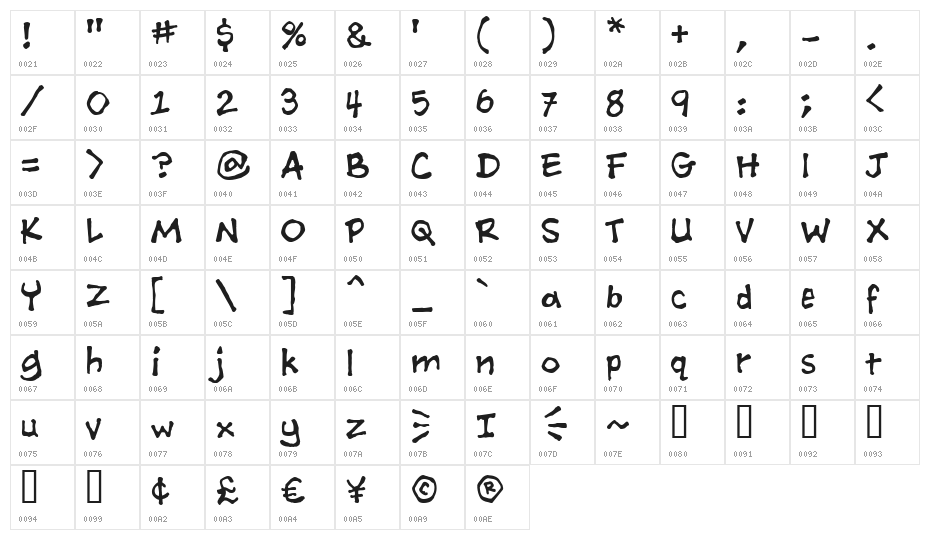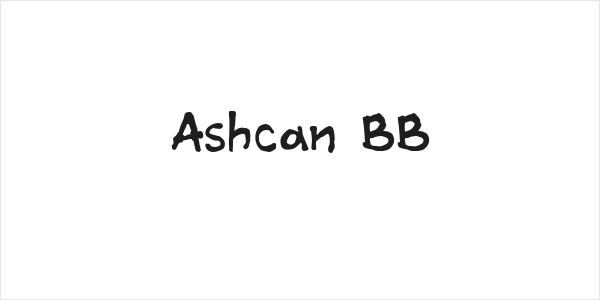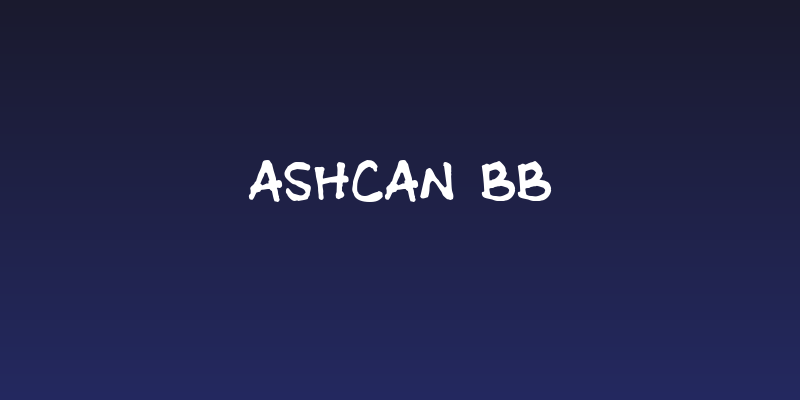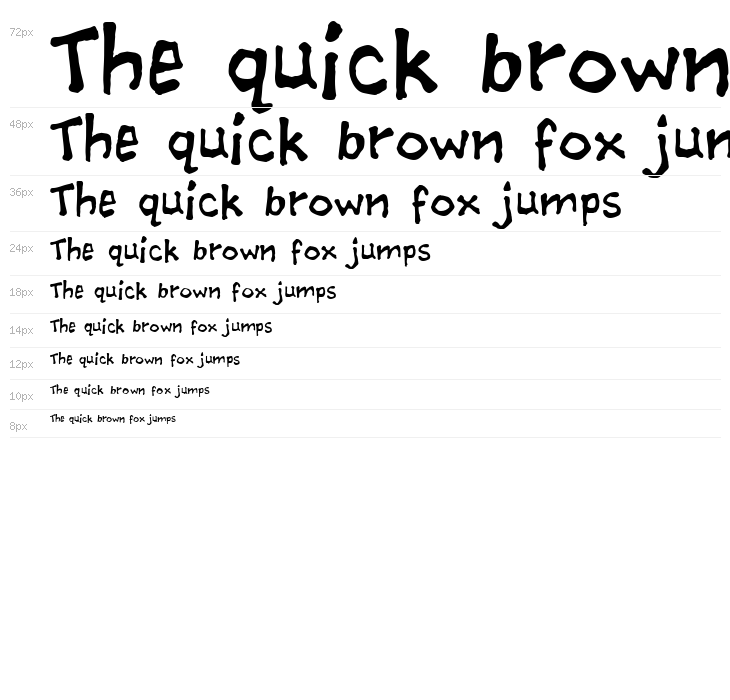
Ashcan BB Font
Ashcan BB Description
This font exhibits a playful and expressive style, characterized by its hand-drawn appearance. The letters have an irregular, organic form, giving them a casual and informal feel. The strokes are bold and uneven, adding to the font's dynamic and energetic look. Each character appears to have been crafted with a brush or marker, contributing to its artistic and spontaneous vibe. The font maintains a consistent weight throughout, with slight variations in stroke thickness that enhance its hand-crafted aesthetic. Its unique style makes it suitable for creative and artistic projects that require a personal touch.
Use CaseHeadlines, Logos, Artistic projects
Proposed ProjectsIdeal for creative projects such as posters, invitations, greeting cards, and artistic branding.